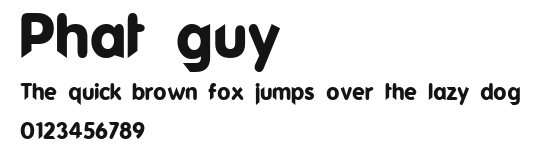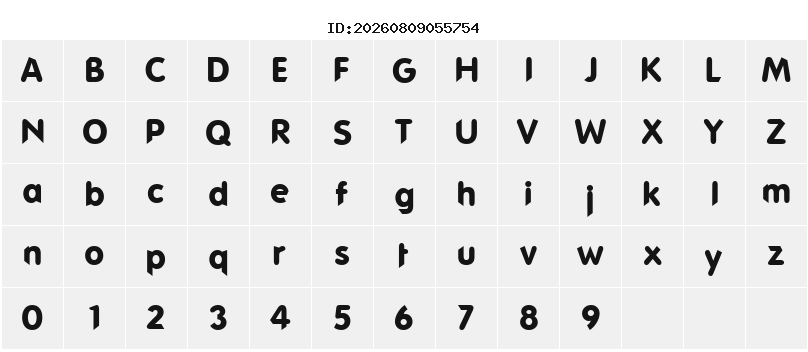
• Font Name: Phat guy
• Full Font Name: Phat guy
About Phat guy.ttf
Phat guy.ttf is a modern, elegant sans-serif font designed for ultimate readability and visual harmony. Perfect for branding, headlines, web design, and print materials.